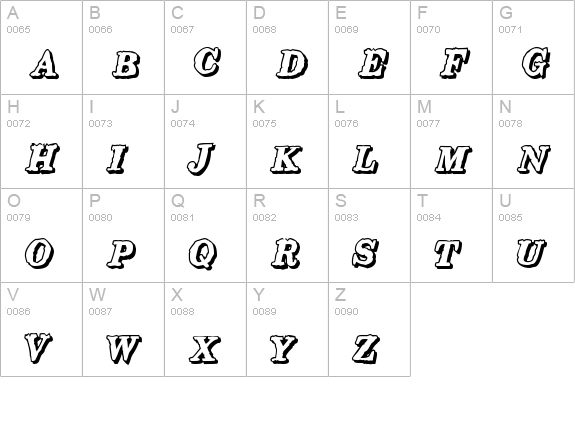
Holiday Font Details
Introducing Holiday font, a whimsical and festive typeface perfect for adding a touch of cheer to your designs this holiday season. With its playful curls and graceful strokes, Holiday font captures the joyful spirit of the holidays in every letter. This versatile font is ideal for creating greeting cards, invitations, posters, and more. The best part? Holiday font is completely free to download at FontsMarket.com. Whether you're a designer looking to sprinkle some holiday magic into your projects or an individual looking to add a special touch to your holiday communications, Holiday font is the perfect choice. Download it today and let your creativity shine with this delightful and merry font.